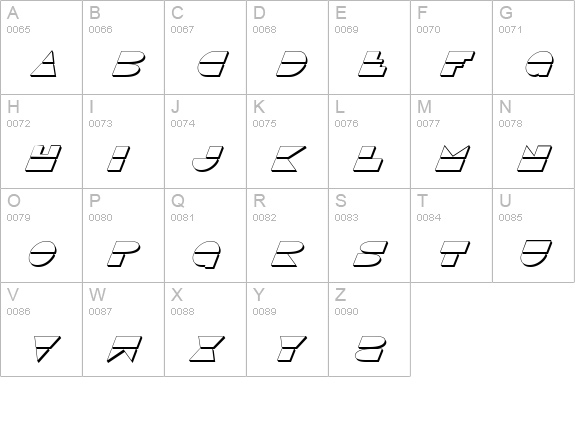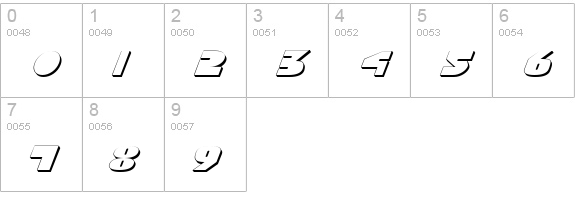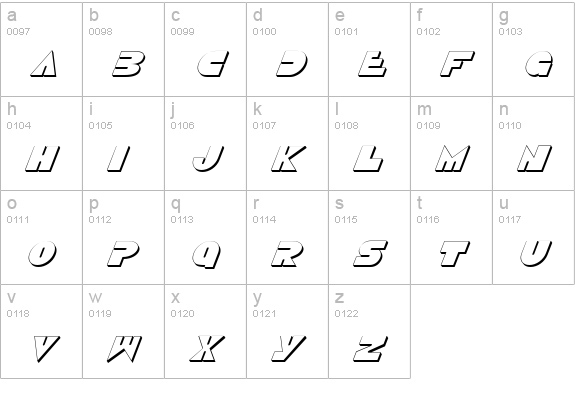
Disco Duck 3D Italic is a distinctive, italic variant in the Disco typeface family \xE2\x80\x94 well suited to design and typography projects.
Disco Duck 3D Italic font is a fun and lively typeface that brings a touch of retro flair to any design project. With its bold, three-dimensional appearance and italic styling, this font is perfect for adding a dynamic and energetic vibe to your creations. Best of all, Disco Duck 3D Italic font is available for free download at FontsMarket.com. Whether you're working on a party invitation, a poster for a music event, or simply want to inject some groovy vibes into your graphic design work, this font is sure to make a statement. Download Disco Duck 3D Italic font today and let your creativity take flight!